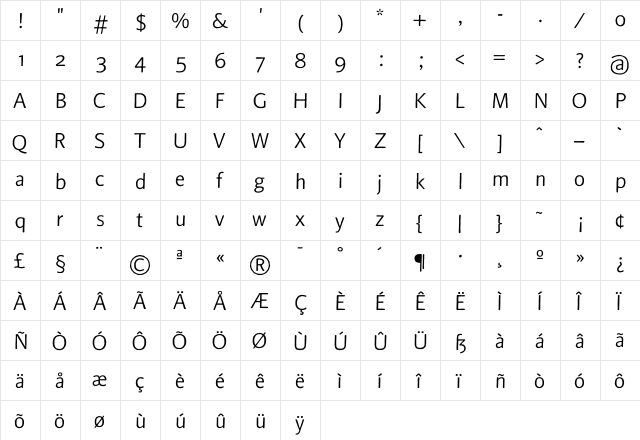
BeoSans R11
Design Context for BeoSans Typeface
BeoSans is a composed and adaptable typeface that performs quietly and consistently across a wide range of design contexts.